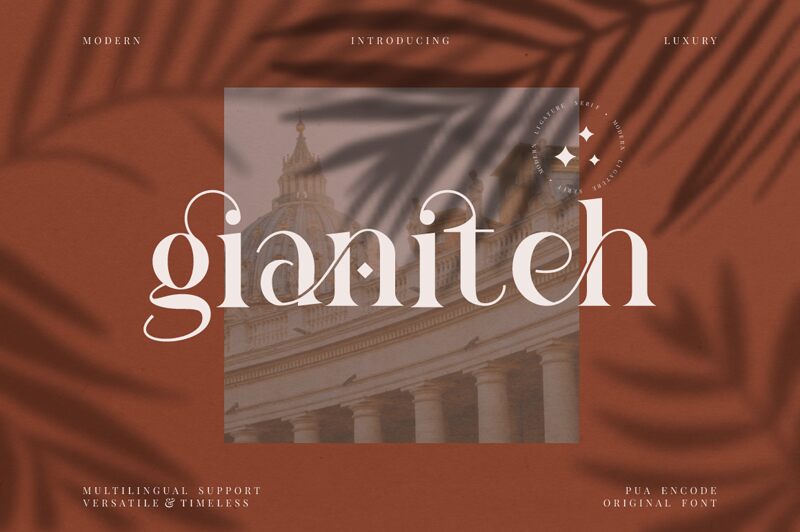
Gianiteh font, by FinTypeStudio, is a refined classical serif font with professional design in each of its letters. With elegance and sophistication, the font communicates its ideas clearly and leaves a timeless impact on viewers.
General use cases for this free serif font are in various types of invitations, apparel designs, social media posts or banners, branding and visual identities such as logos and business cards. The typeface can also be used for printing covers like books or magazines.